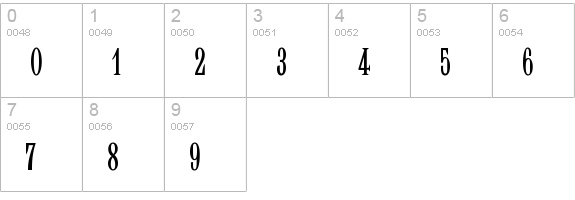
CgLatinElongated Font Details
CgLatinElongated is a stylish and sophisticated font that exudes elegance and charm. With its elongated letterforms and sleek design, this font is perfect for adding a touch of sophistication to any project. Whether you're designing a logo, creating invitations, or crafting a stunning website, CgLatinElongated is sure to make a statement. What's even better is that CgLatinElongated is available for free download at FontsMarket.com. This means you can easily access this stunning font without breaking the bank. Don't miss out on the opportunity to elevate your designs with the beauty and grace of CgLatinElongated. Download it today and start creating something truly exceptional.